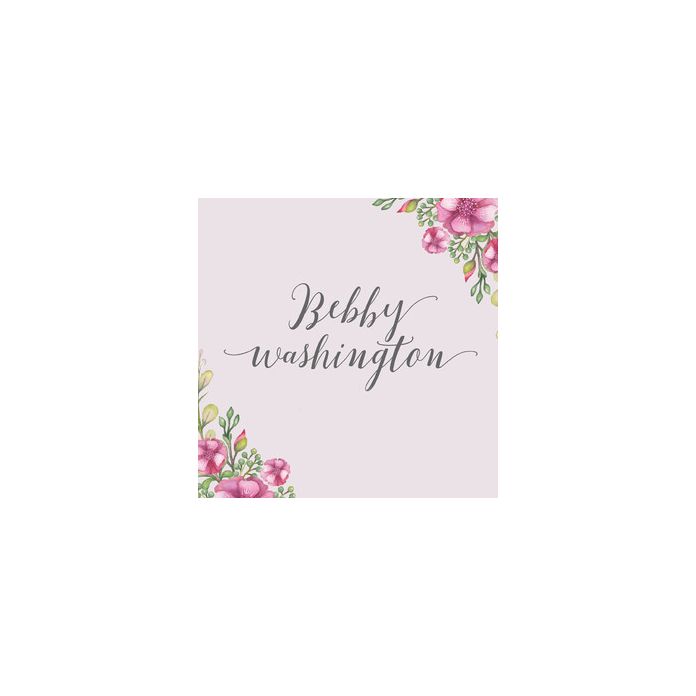
Bebby Washington Script is an elegant and beautiful modern calligraphy font with a beautiful blend of swashes and beginning and ending alternates. Perfect for design header displays, invitations, posters, and T-shirts. This font contains a total of 317 characters including international characters.